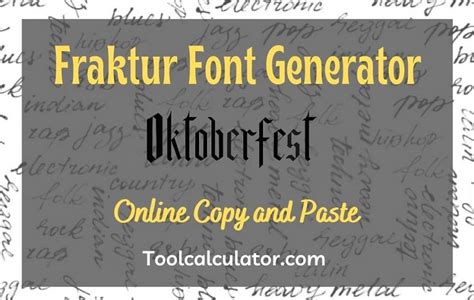
Fette Fraktur Font Generator: Create Unique Text!
Fette Fraktur Font Generator
Hey guys! Ever wanted to give your text that old-school, Germanic flair? You know, that super cool, blackletter vibe? Well, you’re in the right place! Let’s dive into the world of Fette Fraktur font generators and how you can use them to create some seriously eye-catching designs. Whether you’re working on a poster, a logo, or just want to spice up your social media posts, understanding and using Fette Fraktur can add a unique touch that sets you apart. This article will explore everything you need to know about this fascinating font and the tools that make it accessible to everyone.
What is Fette Fraktur?
So, what exactly is Fette Fraktur? Simply put, it’s a blackletter typeface. Blackletter fonts, also known as Gothic or Old English fonts, are characterized by their bold, angular strokes and intricate designs. Fette Fraktur, in particular, is a heavier, more emphasized version of Fraktur, making it even more striking and attention-grabbing. Think of it as the boldest and most badass of the blackletter family! Its historical roots trace back to 16th-century Germany, where it was widely used in printing and formal documents. Today, while not as common in mainstream media, Fette Fraktur maintains a strong presence in specific design niches. You’ll often see it used in branding for breweries, metal bands, and historical societies, as well as in decorative elements for special events like Oktoberfest. The font’s distinct appearance evokes a sense of tradition, strength, and a bit of rebellious edge, making it a perfect choice for projects that aim to convey these qualities. Understanding the history and cultural context of Fette Fraktur helps designers wield it effectively, ensuring that its use is both aesthetically pleasing and culturally sensitive. Plus, knowing its origins gives you some cool trivia to share when someone compliments your awesome design!
Why Use a Fette Fraktur Font Generator?
Okay, now you know what Fette Fraktur is, but why should you bother using a font generator? Well, unless you’re a seasoned graphic designer with a vast library of fonts at your fingertips, accessing and using Fette Fraktur can be a bit of a challenge. That’s where font generators come to the rescue! Fette Fraktur font generators are online tools that allow you to type in any text and instantly convert it into the Fette Fraktur typeface. It’s quick, easy, and requires no special software or design skills. These generators are super handy for several reasons. First, they offer instant gratification . Need a Fette Fraktur logo for your band’s new merch? Just type it in, and boom, you’ve got it! Second, they’re incredibly accessible . Most generators are free to use and available online, meaning you can create stunning text designs from any device with an internet connection. Third, they’re versatile . While the core Fette Fraktur style remains consistent, many generators offer customization options, allowing you to tweak the size, color, and even add decorative elements to your text. This level of flexibility makes it easy to tailor the font to your specific needs. Moreover, using a font generator can save you a ton of time and effort. Instead of spending hours searching for and installing the right font, you can create exactly what you need in a matter of seconds. This efficiency is especially valuable for projects with tight deadlines or for designers who want to experiment with different styles without committing to a specific font. In short, Fette Fraktur font generators democratize access to this unique typeface, making it easier than ever to add a touch of old-world charm to your designs.
How to Use a Fette Fraktur Font Generator
Using a Fette Fraktur font generator is usually a piece of cake. Here’s a general step-by-step guide to get you started:
1. Choose Your Generator: Select one of the font generators from the list above (or find one on your own!). Make sure it offers the Fette Fraktur style you’re looking for.
2. Enter Your Text: Look for the text input box on the generator’s website. This is where you’ll type in the text you want to convert to Fette Fraktur. It could be a word, a phrase, or even a whole paragraph.
3. Generate the Font: Once you’ve entered your text, click the “Generate,” “Convert,” or similar button. The generator will then process your text and display it in the Fette Fraktur font.
4. Customize (Optional): Some generators offer customization options. If available, you can adjust the size, color, and other attributes of the font to your liking. Experiment with different settings to achieve the desired look.
5. Copy or Download: Once you’re happy with the result, you have two main options: copy the generated text or download the font file. If you choose to copy, simply select the text and paste it into your desired application (e.g., social media, document editor). If you choose to download, follow the generator’s instructions to download the font file to your computer. Keep in mind that you’ll need to install the font file to use it in design software.
6. Use and Enjoy: Now that you have your Fette Fraktur text, you can use it in your projects! Add it to your posters, logos, social media posts, or anything else you can think of. Get creative and have fun!
Pro Tip: When copying and pasting generated text, be aware that some platforms may not fully support the Fette Fraktur font. This could result in the text appearing differently than intended. If you encounter this issue, consider using a screenshot of the generated text or downloading the font file and using it in a design application.
Tips for Using Fette Fraktur Effectively
Okay, you’ve got your Fette Fraktur font , but how do you use it effectively ? Here are a few tips to keep in mind:
• Use Sparingly: Fette Fraktur is a very bold and distinctive font. Using it too much can overwhelm your design and make it difficult to read. Instead, use it sparingly to highlight key words or phrases.
• Consider the Context: Fette Fraktur has strong historical and cultural associations. Make sure your use of the font is appropriate for the context of your project. Avoid using it in situations where it could be seen as offensive or insensitive.
• Pair with Simple Fonts: Fette Fraktur works best when paired with simple, clean fonts like sans-serif or minimalist serif typefaces. This contrast helps to balance the boldness of Fette Fraktur and improve readability.
• Pay Attention to Kerning: Kerning is the spacing between individual letters in a font. Fette Fraktur often requires careful kerning to ensure that the letters are evenly spaced and easy to read. Most design software offers kerning tools that you can use to adjust the spacing.
• Experiment with Color: While Fette Fraktur looks great in black, don’t be afraid to experiment with different colors. Gold, silver, and other metallic colors can enhance the font’s historical and regal feel.
By following these tips, you can use Fette Fraktur to create visually stunning and impactful designs that capture attention and convey the right message. Remember, the key is to use the font intentionally and thoughtfully, considering its unique characteristics and cultural context.
Examples of Fette Fraktur in Design
To give you some inspiration, let’s take a look at a few examples of how Fette Fraktur is used in design:
• Brewery Logos: Many breweries, especially those with a German heritage, use Fette Fraktur in their logos to evoke a sense of tradition and craftsmanship. The bold, angular letters convey a feeling of strength and authenticity.
• Metal Band Logos: Fette Fraktur is a popular choice for metal band logos, particularly those in the black metal and death metal genres. The font’s dark and edgy aesthetic perfectly complements the music’s themes of darkness and rebellion.
• Historical Societies: Historical societies often use Fette Fraktur in their branding and promotional materials to convey a sense of history and tradition. The font’s classic look and feel evokes a connection to the past.
• Oktoberfest Decorations: Fette Fraktur is a staple of Oktoberfest decorations. It’s used on banners, posters, and signage to create a festive and authentic atmosphere.
• Tattoo Designs: Fette Fraktur is a popular choice for tattoo designs, especially among those who appreciate its historical and cultural significance. The bold, intricate letters make for a striking and meaningful tattoo.
These examples demonstrate the versatility of Fette Fraktur and its ability to enhance a wide range of designs. Whether you’re creating a logo, designing a poster, or just adding some flair to your social media posts, Fette Fraktur can help you achieve a unique and memorable look.
Conclusion
So, there you have it! Everything you need to know about Fette Fraktur font generators . With these tools and tips, you can easily add a touch of old-world charm to your designs. Whether you’re a seasoned designer or just starting out, Fette Fraktur offers a unique and captivating way to express your creativity. So go ahead, give it a try, and see what amazing things you can create! Have fun experimenting with different generators, styles, and colors, and don’t be afraid to push the boundaries of design. With a little practice and creativity, you’ll be creating stunning Fette Fraktur designs in no time. Happy designing, and remember to keep it bold, keep it stylish, and most importantly, keep it fun!